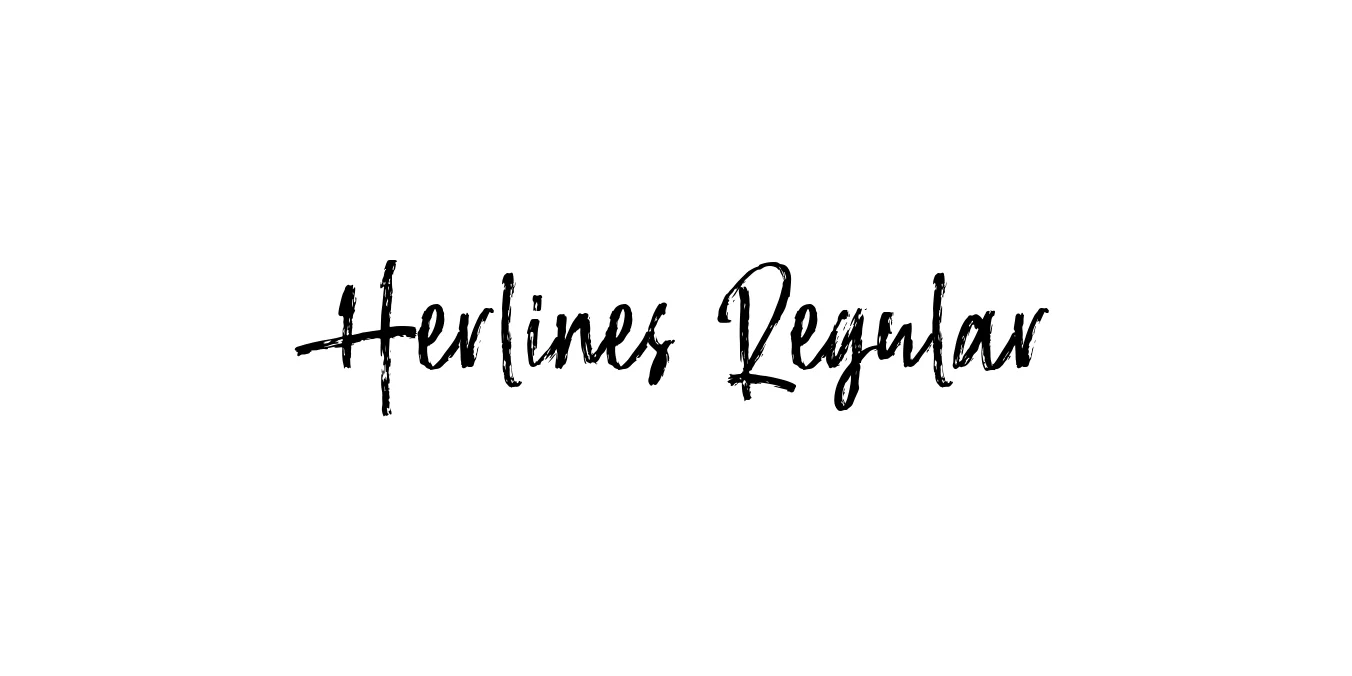
Herlines Regular
Designed by Lemonthe
Herlines Regular is an exquisite script typeface that captures the essence of refined handwriting with its smooth transitions and delicate, flowing letterforms. Developed by the design studio Lemonthe, this font is meticulously crafted to evoke a sense of sophistication and personal connection, making it highly effective for premium design projects that require a human touch. Its fluid strokes and balanced proportions ensure that it remains legible while maintaining a high level of artistic flair.
The font is particularly well-suited for high-end applications where a signature aesthetic is desired. It includes a variety of stylistic alternates and ligatures that allow designers to customize text for a truly unique look, mimicking the natural flow of hand-penned ink. Whether used for elegant wedding invitations, high-fashion branding, or sophisticated editorial layouts, Herlines Regular provides a versatile solution for those seeking a touch of modern calligraphy and timeless grace.
Herlines Regular Best Uses
Adds a sophisticated and personal touch to formal invitations and RSVP cards.
Perfect for creating high-end logos and signature-style corporate identities.
Enhances aesthetic quotes and lifestyle posts with its flowing script style.
Ideal for boutique cosmetic and fashion labels requiring a refined, hand-crafted look.